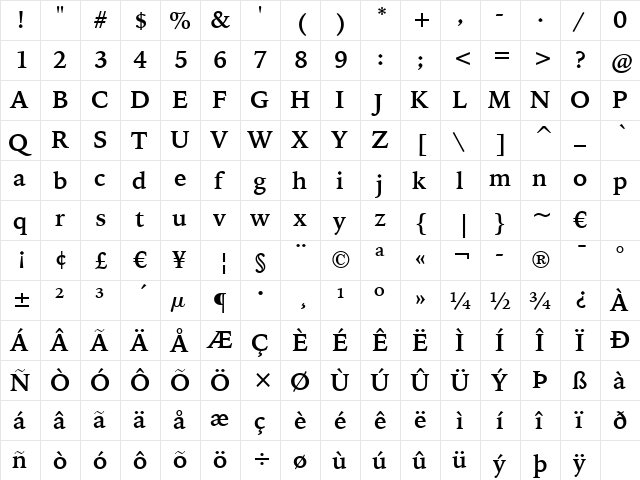
IowanOldSt BT Bold
Design Context for IowanOldSt BT Typeface
IowanOldSt BT takes a measured approach to typography — its balanced proportions and neutral character make it a reliable workhorse for both digital and print work. The heavy weight commands attention and anchors typographic hierarchies.